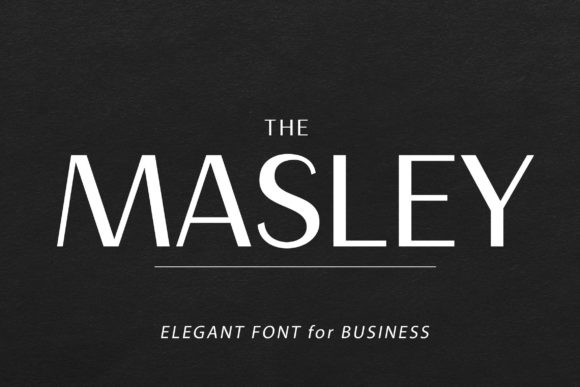
**Introducing Masley Font: The Essential Sans Serif for Health & Wellness Brands**
Embark on a journey of health and well-being with Masley, a cutting-edge sans serif typeface that exudes a refreshing and contemporary vibe. Whether you're crafting compelling blog posts, designing captivating brochures, or creating visually stunning social media campaigns, Masley will elevate your message with its crisp lines and effortless elegance.
**A Font Designed to Heal and Inspire**
Created by the visionary team at Font Therapy, Masley was meticulously crafted with the unique needs of health and wellness brands in mind. Its clean and legible letterforms convey a sense of trust and reliability, making it the perfect choice for communicating important health information and inspiring readers to lead healthier lives.
**Unleash Your Creativity with Endless Possibilities**
With its versatile design, Masley empowers you to create a wide range of captivating designs. From eye-catching headlines to engaging body copy, this font seamlessly adapts to various font sizes and styles. Let your creativity soar as you experiment with different weights and combinations to create a truly unique and memorable brand identity.
**The Perfect Font for Your Health Blog**
If you're looking to establish a strong online presence in the health and wellness industry, Masley is your go-to font. Its sleek and sophisticated appearance will instantly grab readers' attention, making your blog posts stand out from the crowd. Whether you're sharing health tips, promoting new products, or simply connecting with your audience, Masley will help you convey your message with clarity and impact.
**Transform Your Designs with Masley Today**
Don't settle for ordinary fonts that blend into the background. Embrace the power of Masley and watch your designs come to life with newfound energy and vitality. Join the growing community of health and wellness brands who trust Masley to elevate their marketing efforts and connect with their target audience on a deeper level.